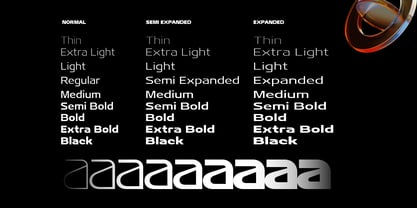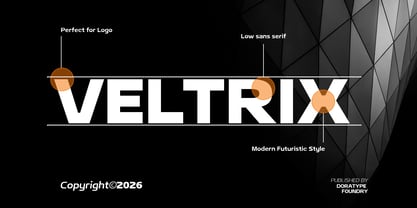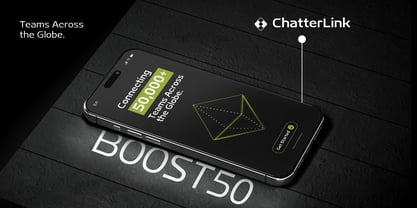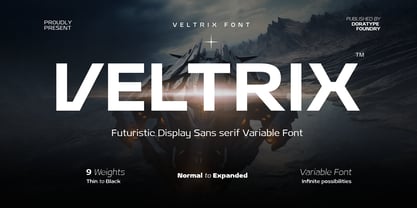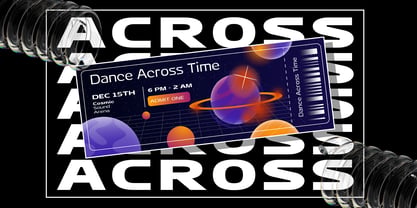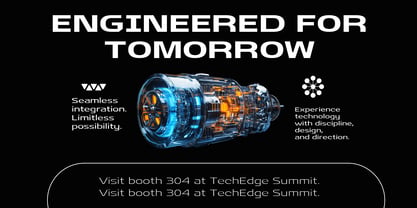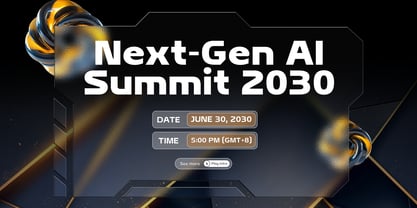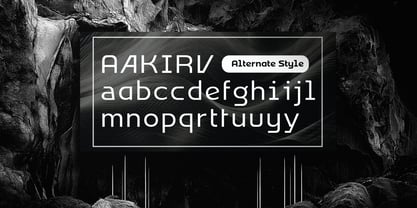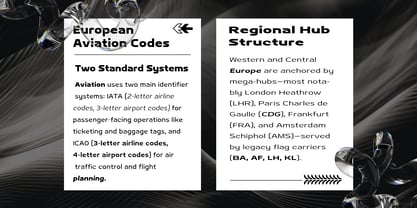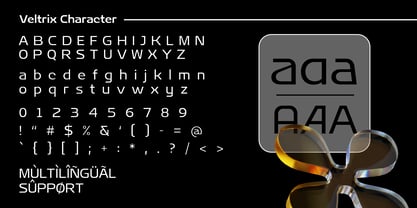
Veltrix
by Dora Typefoundry
The Veltrix Font Family was designed by Zahratul Laila and published by Dora Typefoundry. Veltrix contains 54 styles and family package options. More about this family
VELTRIX is a futuristic sans-serif display font characterized by a modern, bold, and progressive aesthetic. Its letterforms feature a robust geometric structure, expansive proportions, and visual details that evoke themes of technology, speed, and innovation. The clean yet daring design ensures the typeface stands out with a strong, contemporary visual identity.
With support for various weights and great versatility, it offers extensive design possibilities—ranging from light, minimalist looks to bold, commanding styles. This font is ideal for futuristic branding, technology, automotive, and gaming applications, as well as posters, editorial design, product identity, and any creative project requiring a modern, premium, and visionary feel.
Designers: Zahratul Laila
Foundry: Dora Typefoundry